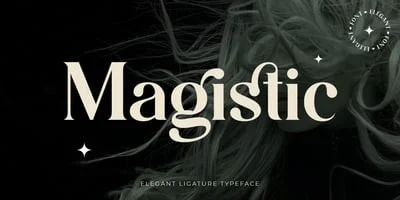
Magistic Font
Magistic Font is excellent for enchanting design applications including fantasy gaming graphics, magical event promotions, mystical branding projects, fairy tale publications, supernatural entertainment marketing, wizardry-themed merchandise, esoteric book covers, and mystical wellness brands. This captivating typeface brings otherworldly charm and magical sophistication to projects that explore supernatural themes and mystical experiences.
What makes Magistic Font exciting is its spellbinding ability to evoke ancient wisdom and mystical power through letterforms that capture the essence of magical arts and supernatural phenomena. The font features enchanting details with mystical flourishes and arcane characteristics that transport viewers into realms of fantasy and wonder. Its magical character appeals to audiences who embrace imagination, spirituality, and supernatural storytelling.
The Magistic Font family includes various mystical styles such as Regular, Bold, Light, and decorative alternates with magical symbols and enchanted flourishes that enhance the supernatural aesthetic. These mystical options provide comprehensive design solutions for creating authentic fantasy brand identities that celebrate magical traditions and supernatural experiences.
This specialized mystical typeface brings genuine magical authenticity to contemporary design projects. Fantasy entertainment companies and spiritual brands choose Magistic Font for its exceptional ability to communicate otherworldly sophistication and mystical power. The font's magical inspiration makes it perfect for gaming companies, spiritual wellness brands, and entertainment properties that explore supernatural themes. Its enchanting character ensures memorable visual impact while maintaining the authentic aesthetic that defines exceptional fantasy-focused design work.